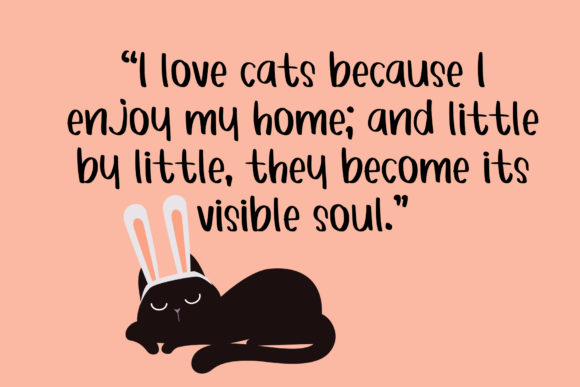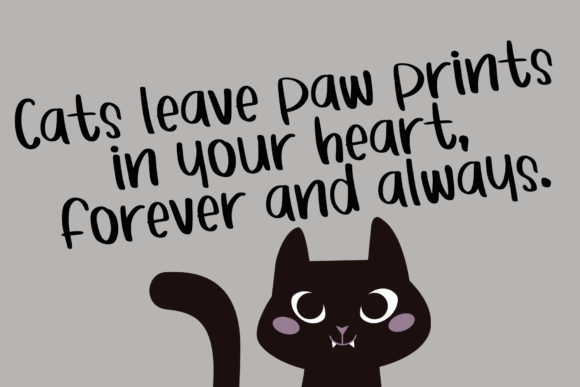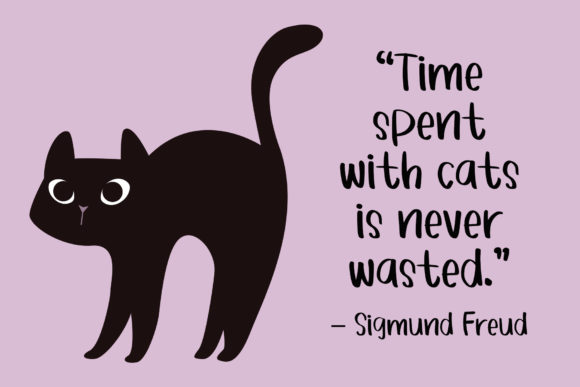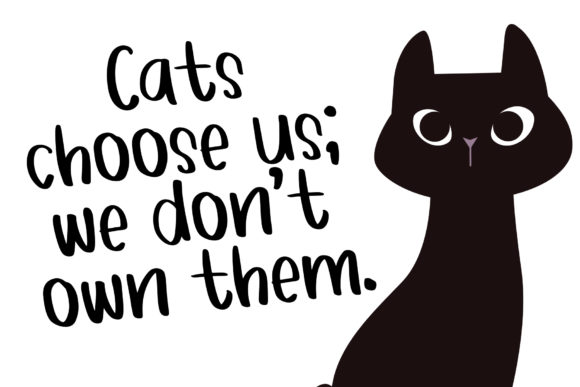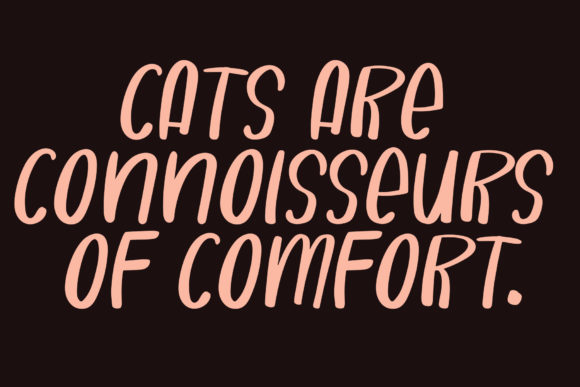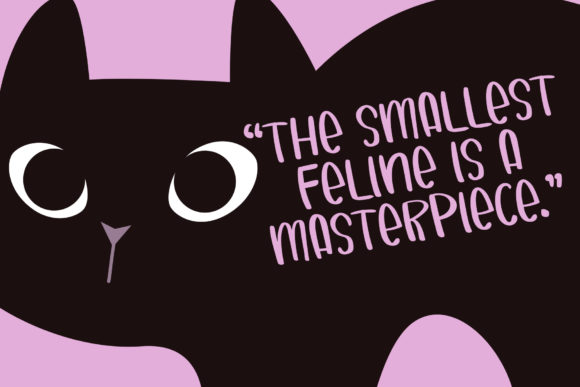
Introducing Americano Font: The Cute and Playful Handwritten Font for Creative Projects
Are you a designer, crafter, or DIY enthusiast looking for a font that can add a touch of whimsy and playfulness to your projects? Look no further than Americano Font! This adorable handwritten font is perfect for a wide range of creative endeavors, from fairy tales and children’s content to paper events, menu designs, and more.
What Makes Americano Font So Special?
Americano Font is a unique and charming handwritten font that is sure to capture the hearts of designers and crafters alike. Its cute and playful style makes it ideal for projects that require a personal and friendly touch. Whether you’re creating a fairy tale, designing a menu, or crafting a paper event, Americano Font is the perfect choice.
One of the standout features of Americano Font is its versatility. It can be used for a wide range of projects, from digital designs to print materials. Its clear and legible style makes it easy to read, while its playful flair adds a touch of personality to any project.
Perfect for Fairy Tales and Children’s Content
Americano Font is a natural fit for fairy tales and children’s content. Its whimsical style is reminiscent of classic children’s books, making it perfect for storybooks, nursery rhymes, and other kids’ content. The font’s playful and imaginative feel will transport your readers to a magical world of wonder and enchantment.
Whether you’re creating a digital storybook or a printed children’s book, Americano Font is the perfect choice. Its clear and legible style makes it easy for young readers to follow along, while its cute and playful style will keep them engaged and entertained.
Ideal for Paper Events and Menu Designs
Americano Font is also perfect for paper events and menu designs. Its playful and charming style adds a touch of personality to any event or menu, making it stand out from the crowd. Whether you’re designing a wedding invitation, a restaurant menu, or a party flyer, Americano Font is the perfect choice.
The font’s clear and legible style makes it easy to read, even at small sizes. This means you can use it for a wide range of applications, from business cards to billboards. Its versatility and charm make it a great addition to any design project.
Why Choose Americano Font?
So why choose Americano Font for your next project? Here are just a few reasons:
- Unique and charming style: Americano Font has a one-of-a-kind style that will set your project apart from the crowd.
- Versatile: The font can be used for a wide range of projects, from digital designs to print materials.
- Easy to read: Americano Font is clear and legible, making it perfect for body text and headlines.
- Playful and imaginative: The font’s playful flair adds a touch of personality to any project.
Tips for Using Americano Font
Here are a few tips for using Americano Font in your next project:
- Use it for headings and titles: Americano Font is perfect for headings and titles, where its playful style can really shine.
- Pair it with a sans-serif font: Pair Americano Font with a sans-serif font, such as Arial or Helvetica, for a clean and modern look.
- Experiment with colors: Americano Font looks great in a wide range of colors, from bright and bold to pastel and soft.
- Use it for digital and print projects: Americano Font can be used for both digital and print projects, making it a great addition to any design toolkit.
Americano Font is a cute and playful handwritten font that is perfect for a wide range of creative projects. Its unique and charming style makes it ideal for fairy tales, children’s content, paper events, menu designs, and more. With its versatility, clarity, and playful flair, Americano Font is a great addition to any design toolkit.